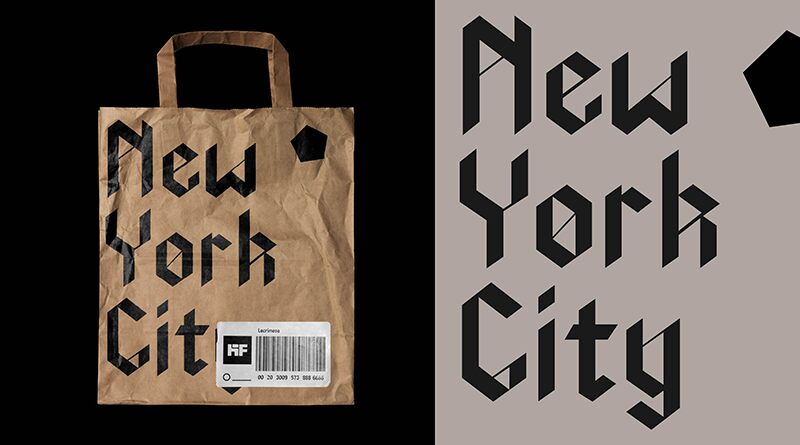
HF Lacrimosa, designed by HyFont Studio, is a modern gothic font with a semi-condensed width. With its sleek and contemporary style, this font is perfect for creating impactful designs in various projects.
Whether you're working on edgy fashion branding, dark and mysterious book covers, or avant-garde music posters, HF Lacrimosa will add a touch of sophistication and intrigue. Its unique blend of elegance and boldness makes it an ideal choice for anything from alternative album covers to gothic-inspired wedding invitations.